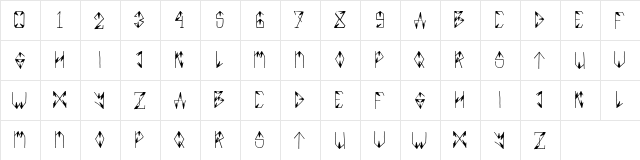
XENDER Regular
| Designer | Oziel89 Studio |
Design Context for XENDER Typeface
XENDER is a composed and adaptable typeface that performs quietly and consistently across a wide range of design contexts.